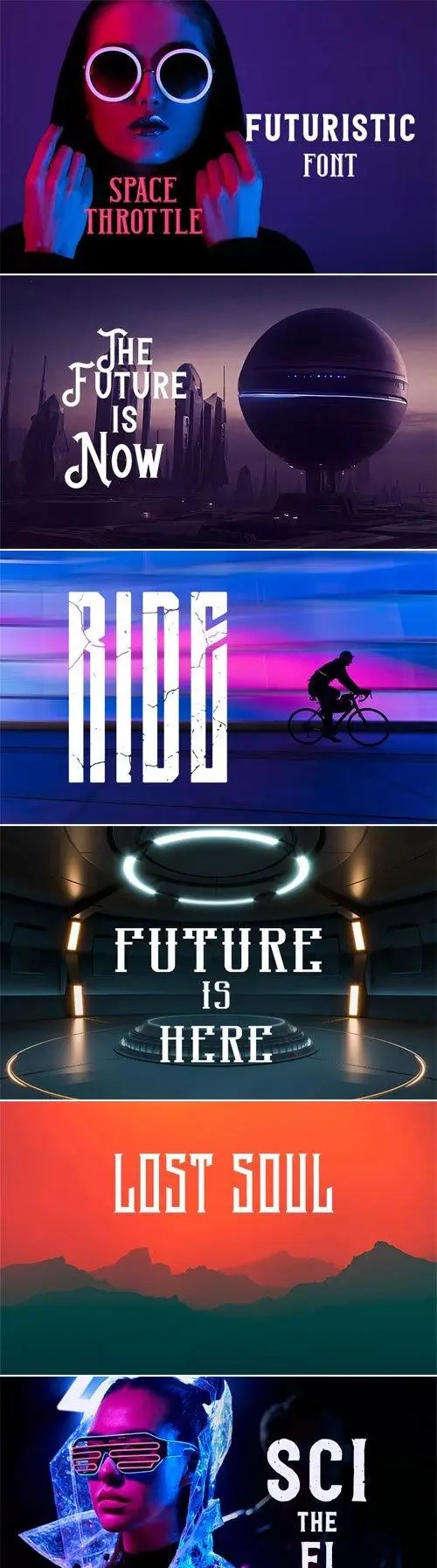
Futuristic Fonts Pack
Introducing the Futuristic Fonts Pack, a curated collection of innovative typefaces designed to give your projects a modern and cutting-edge aesthetic. This pack features a variety of font styles, including sleek sans-serifs and bold display fonts, perfect for any design that aims to convey a forward-thinking vibe.
• Multiple font weights for versatility
• Unique letterforms that stand out